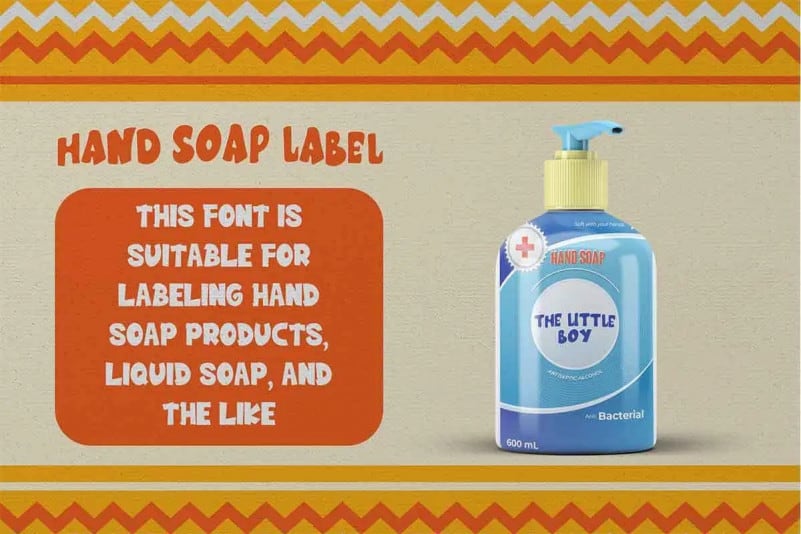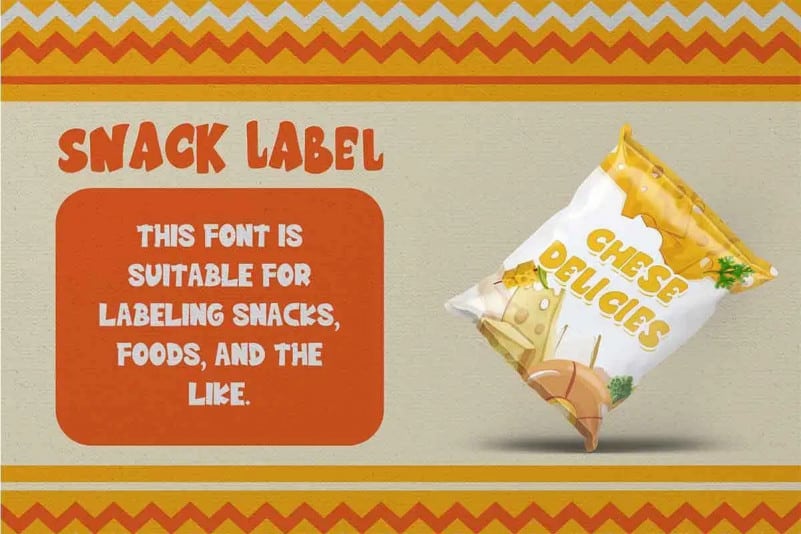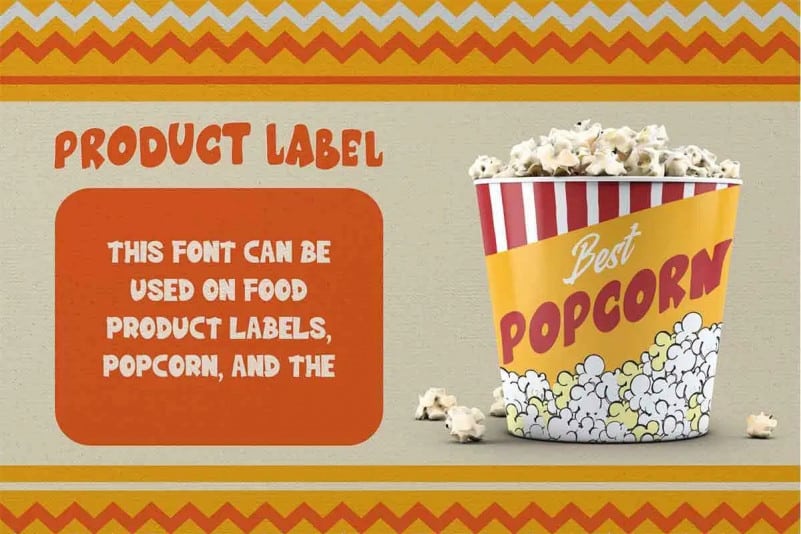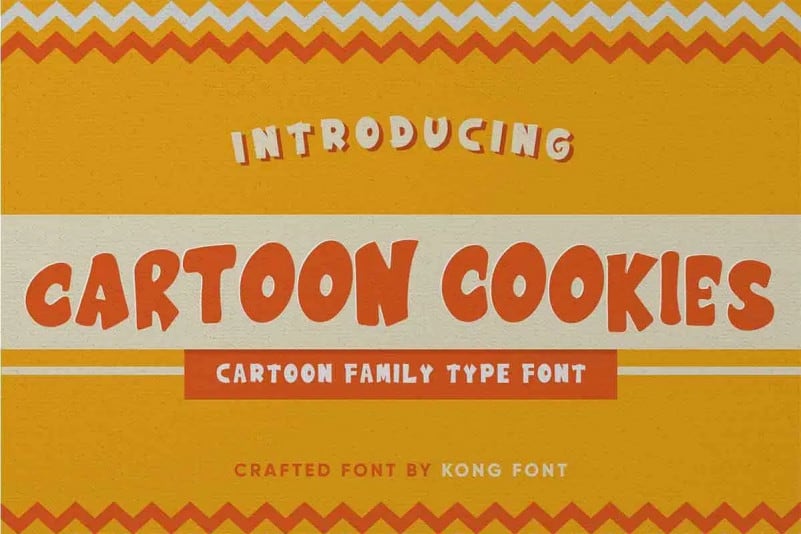
Thanks for checking out Cartoon Cookies Display Font is a sweet and playful display typeface that radiates life. Get inspired by its modern feel! Use this font wherever you need an easy-to-read fun font that has a laidback and approachable vibe. Amazing for cards, kids books, quotes, promotion, packaging, logos, art and whatever else you can come up with.
Cartoon cookies
Cartoon cookies Tilted